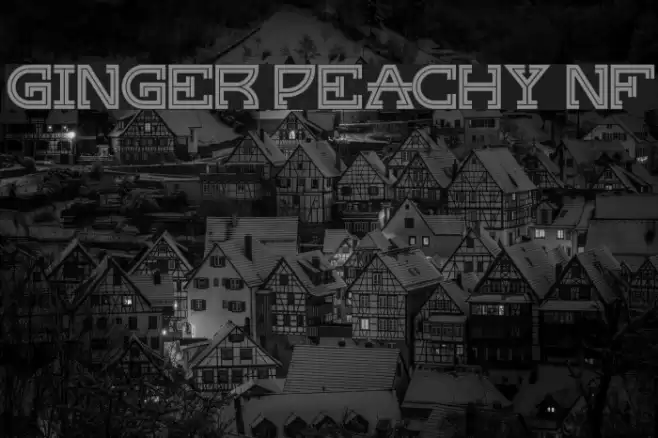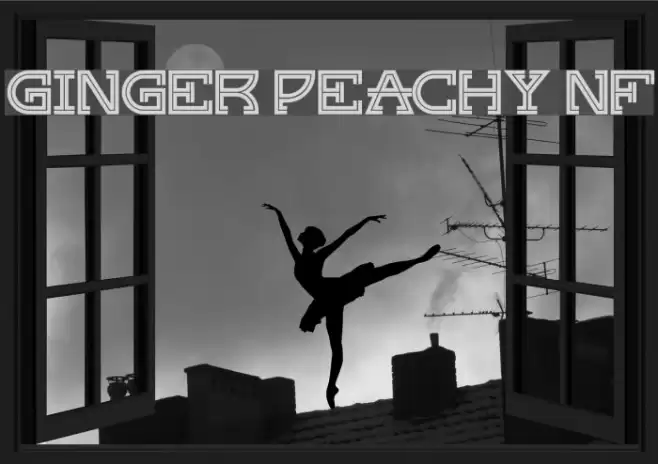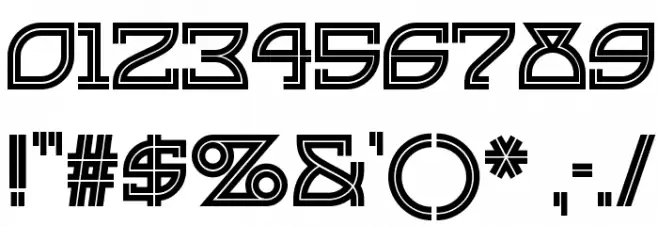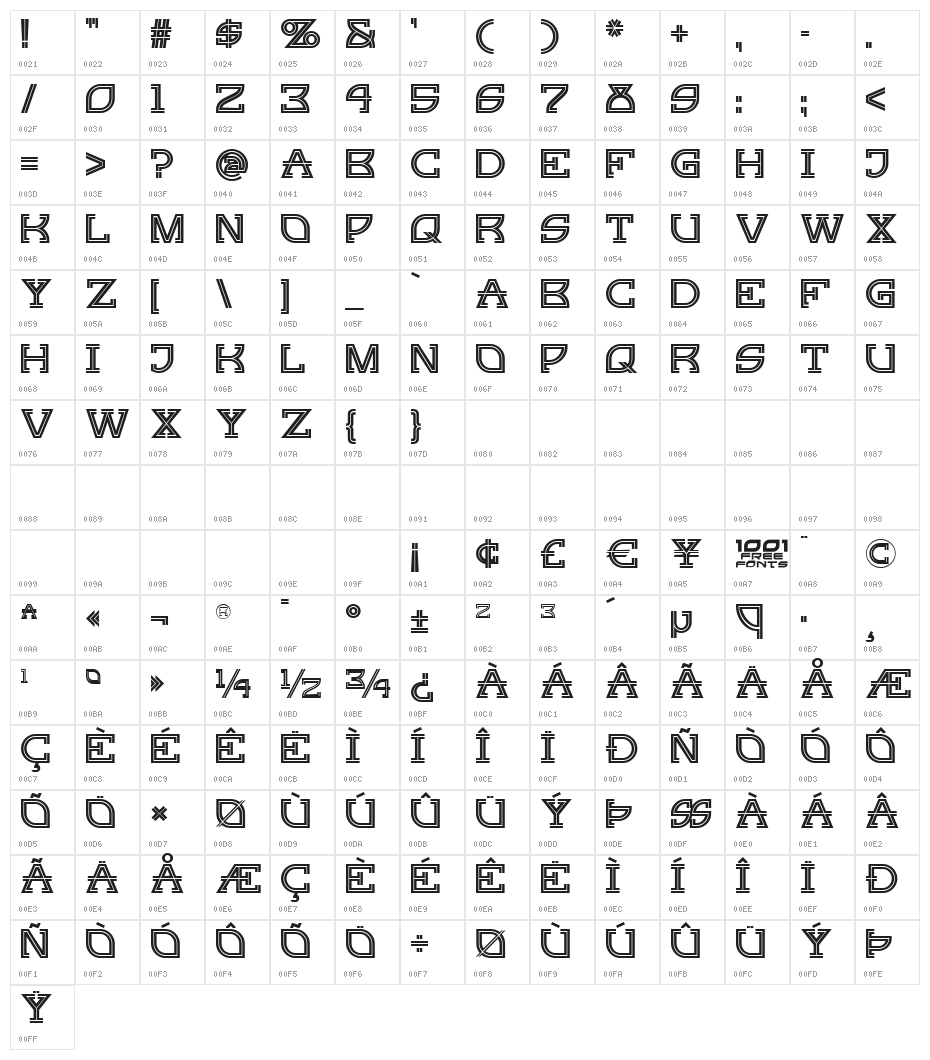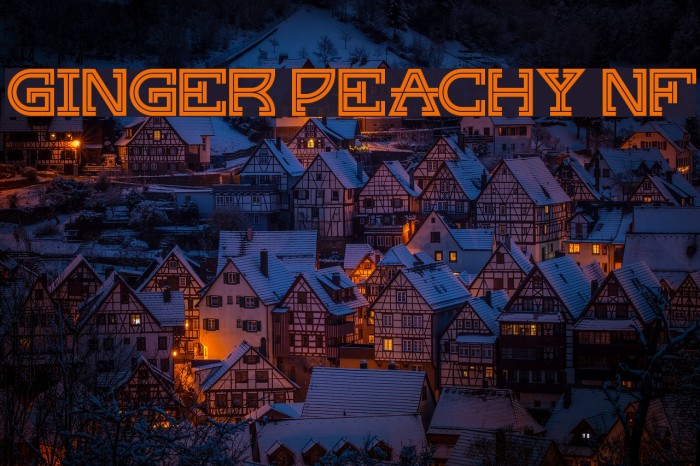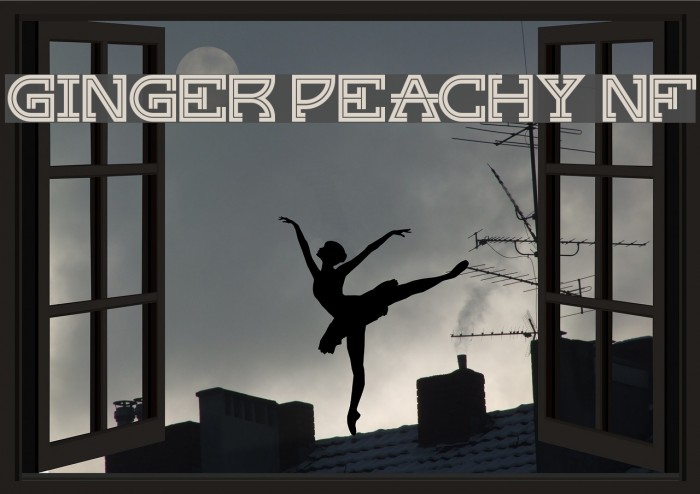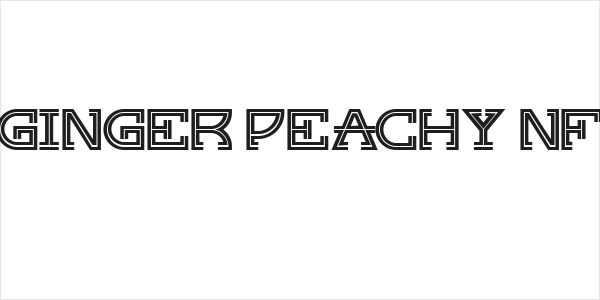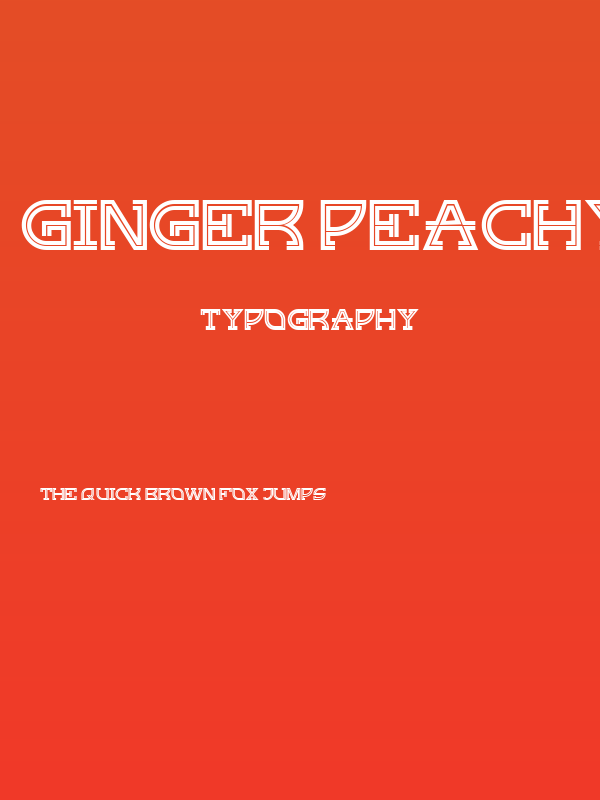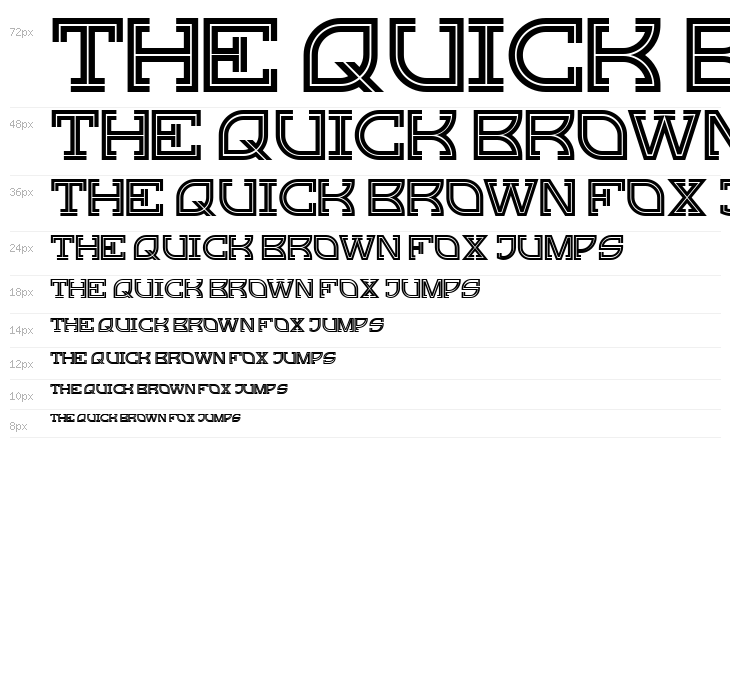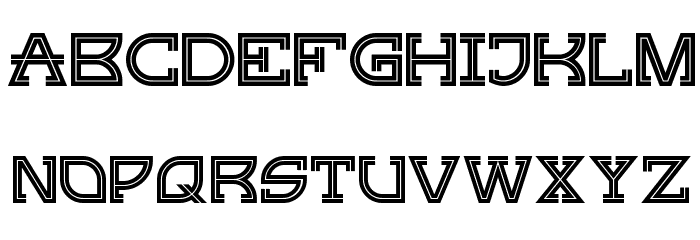
Ginger Peachy NF Font
Ginger Peachy NF Description
This font features a bold, geometric design with a distinct double-line structure that creates a sense of depth and dimension. The characters are uppercase and maintain a consistent width, giving them a uniform appearance. The style is reminiscent of Art Deco, with sharp angles and clean lines that convey a sense of modernity and sophistication. The numbers and special characters follow the same design principles, ensuring a cohesive look across all elements. This font is particularly striking due to its high contrast and decorative elements, making it ideal for attention-grabbing designs.
A bold, geometric font with a double-line structure and Art Deco influences from Decorative fonts.
- Proposed Projects: Ideal for branding, posters, headlines, and any project requiring a bold, decorative typeface.
- Overall Style: Modern, Art Deco